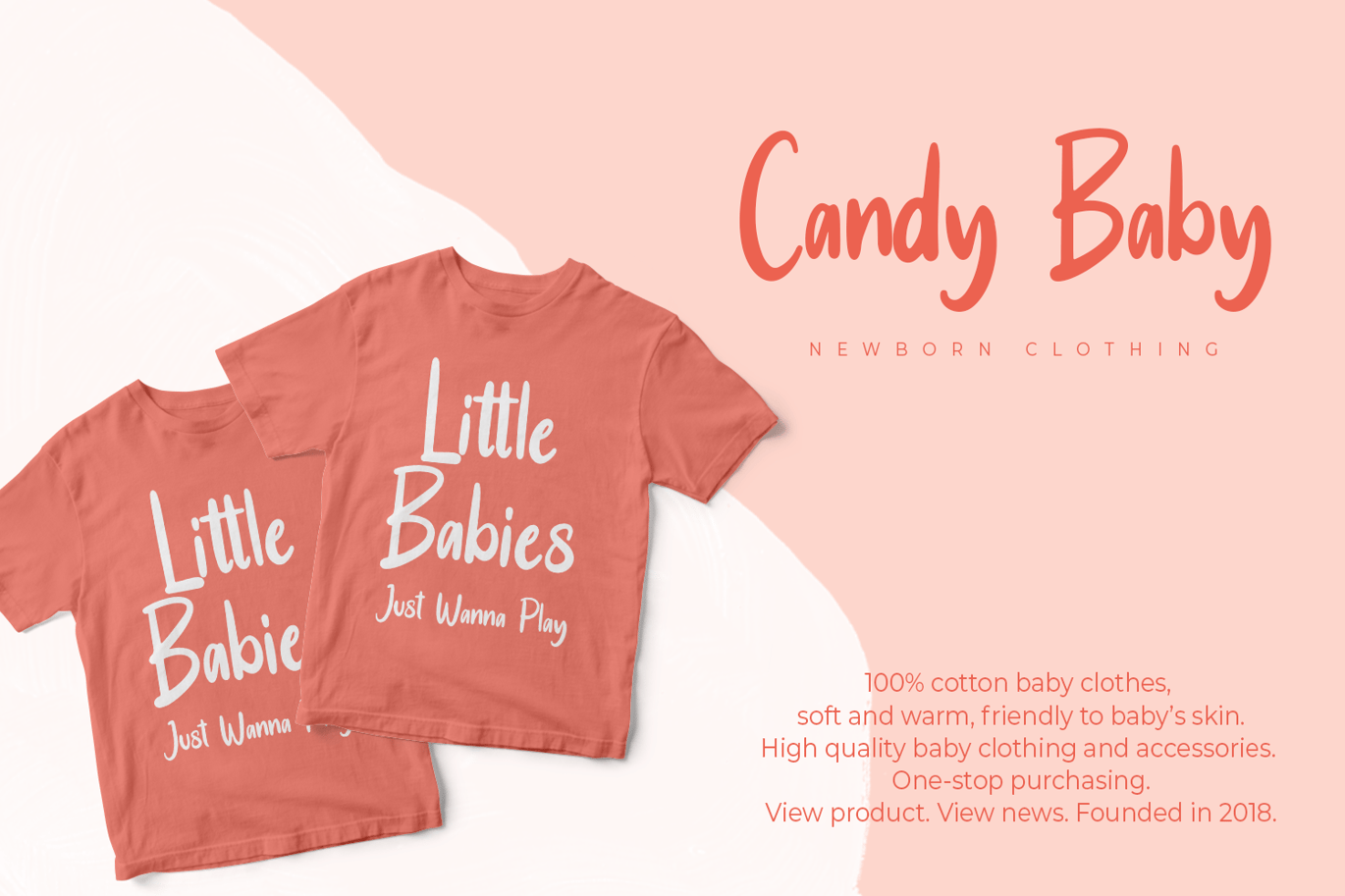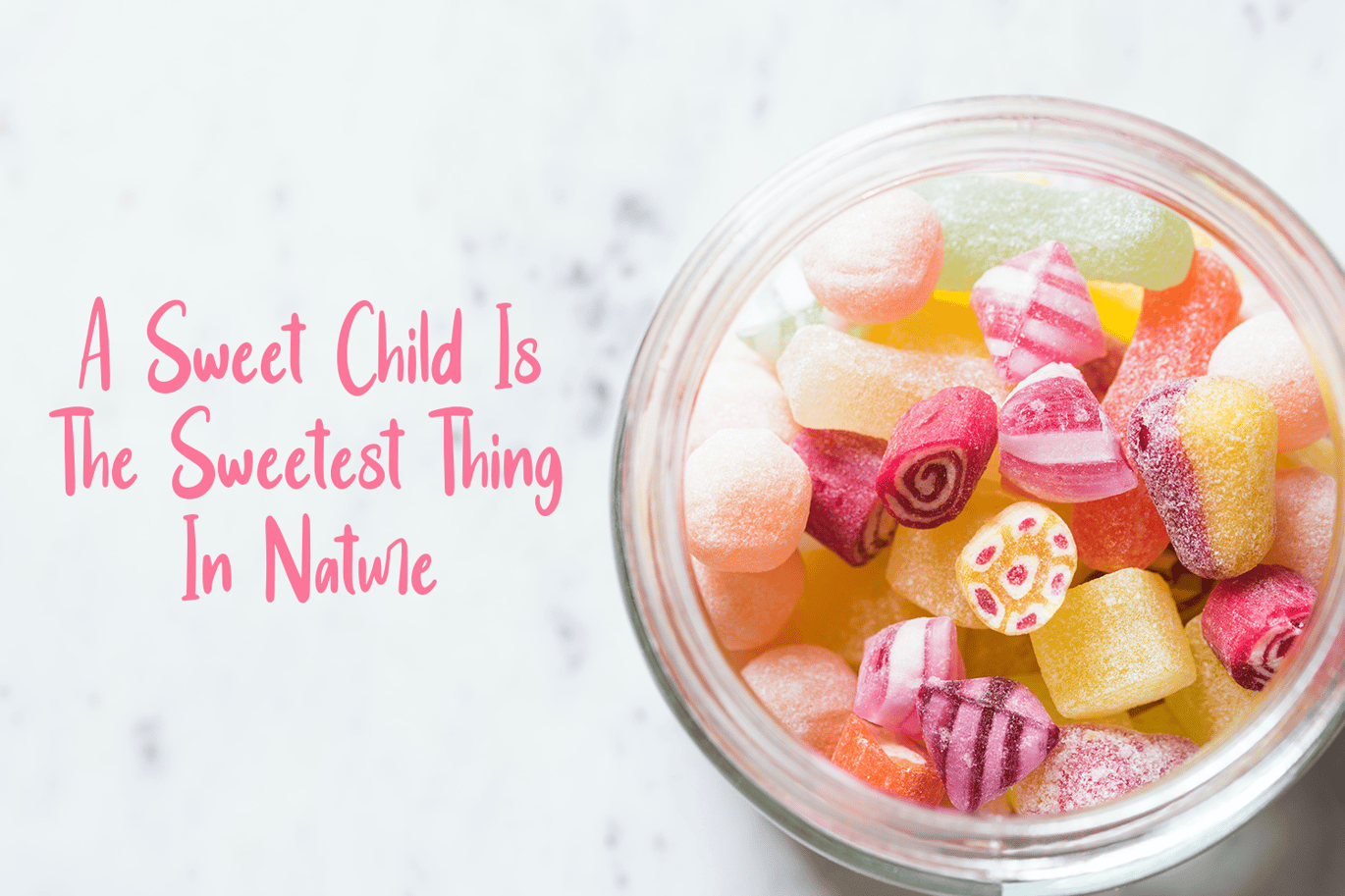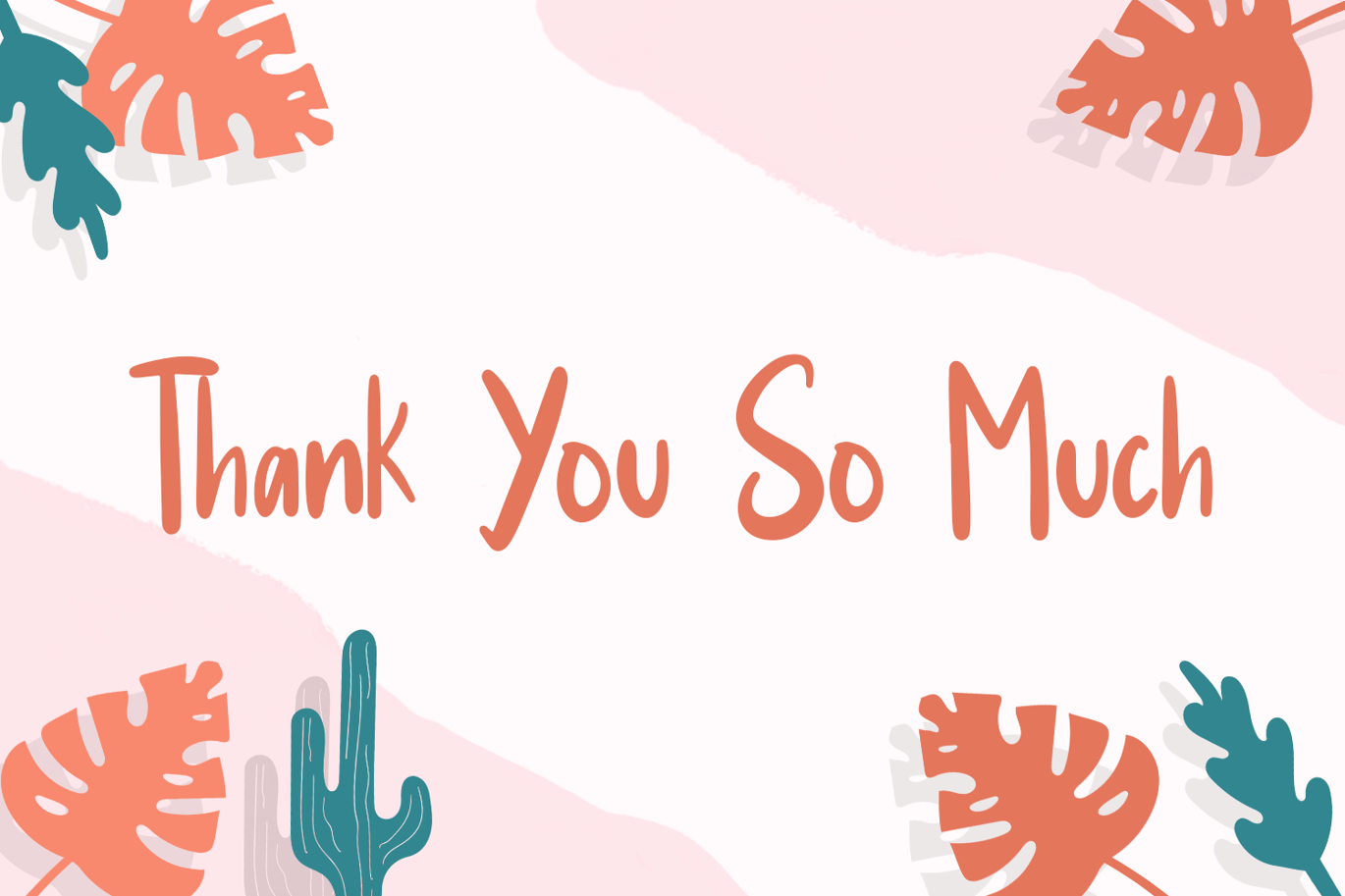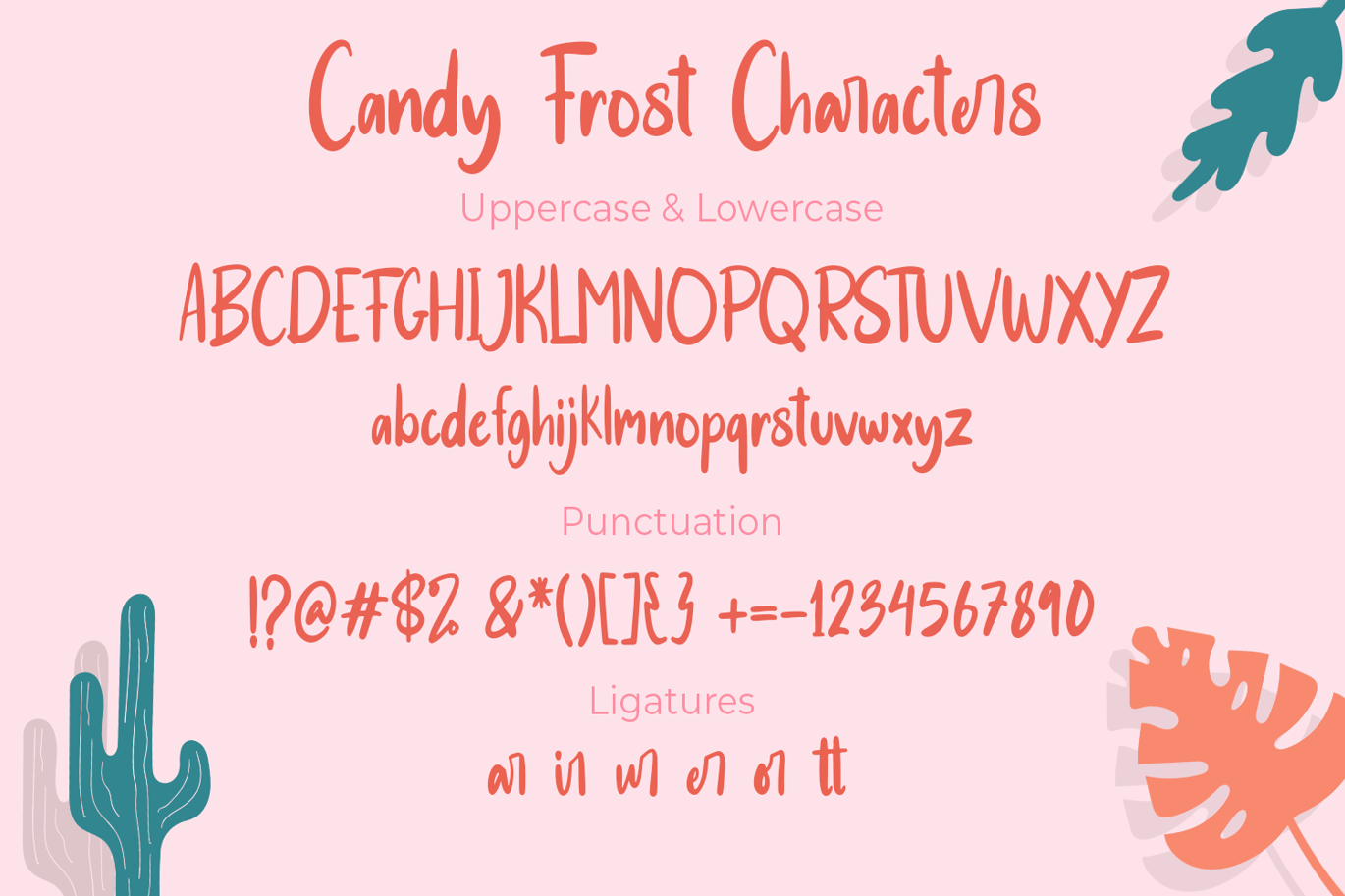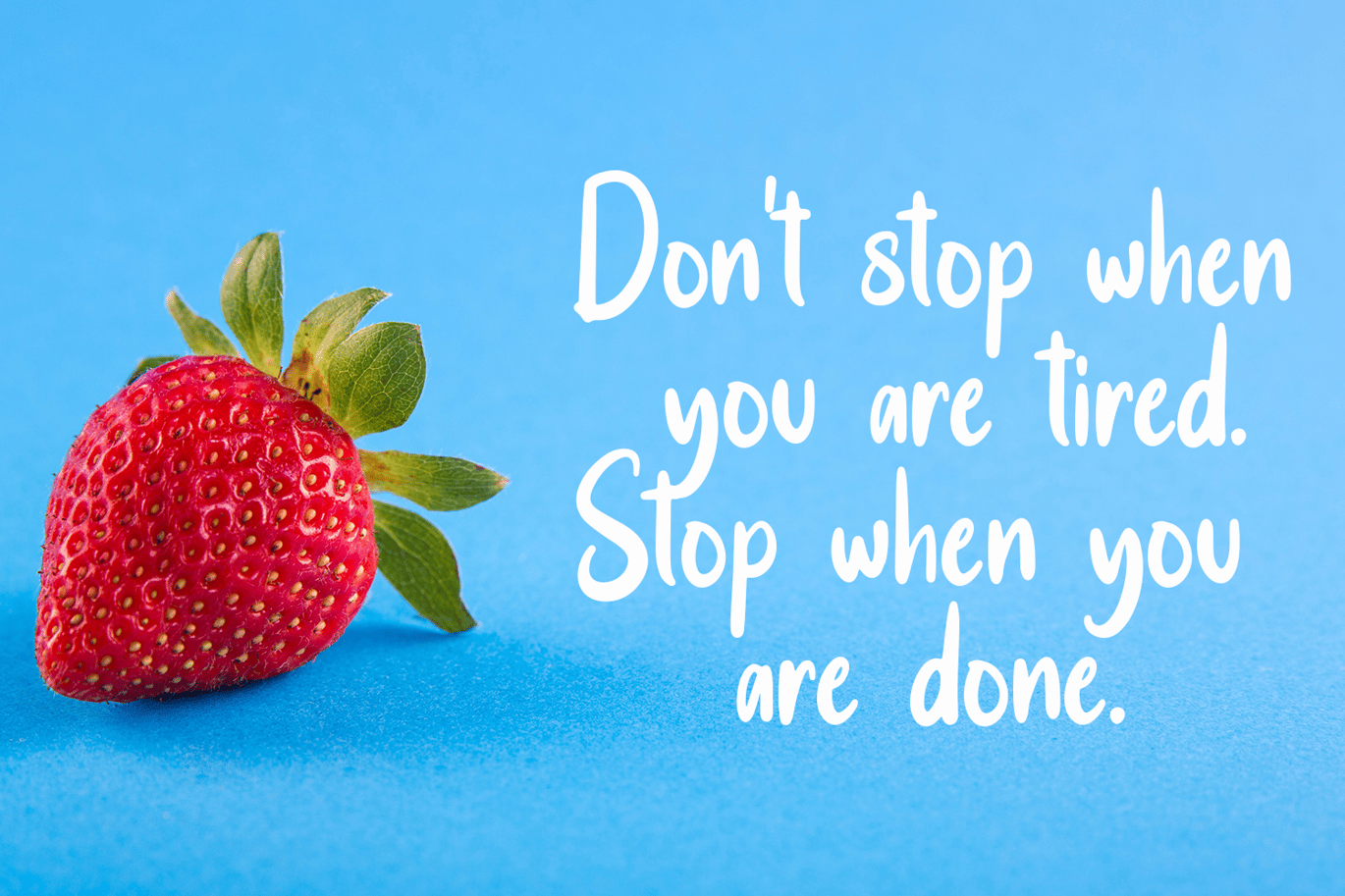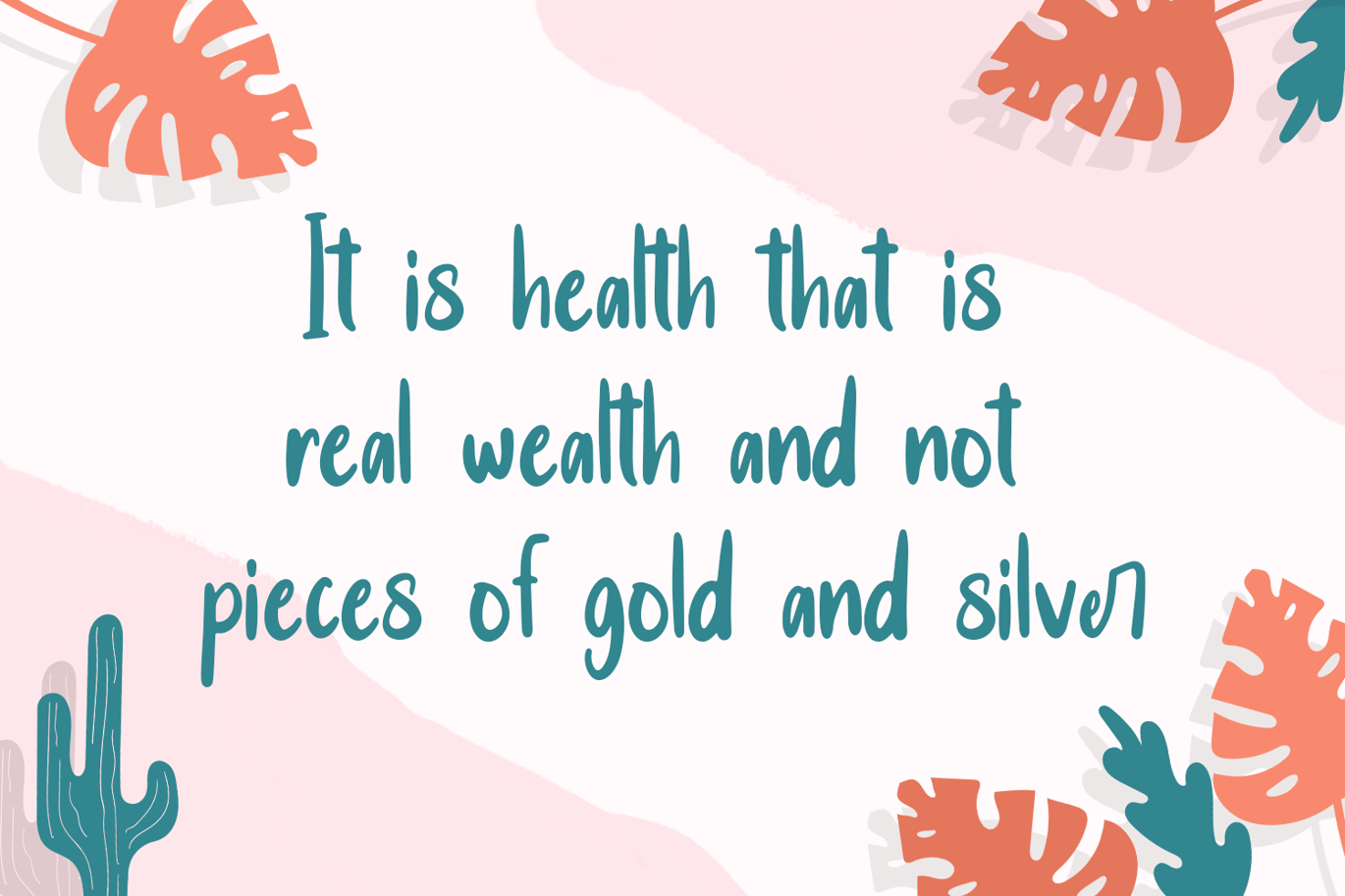
Candy Frost Playful Bouncy Font
Candy Frost Playful Bouncy Font is a specially crafted for children, Boys, Kindergarten, Birthday, Kid, Cartoon, and Comic purposes.